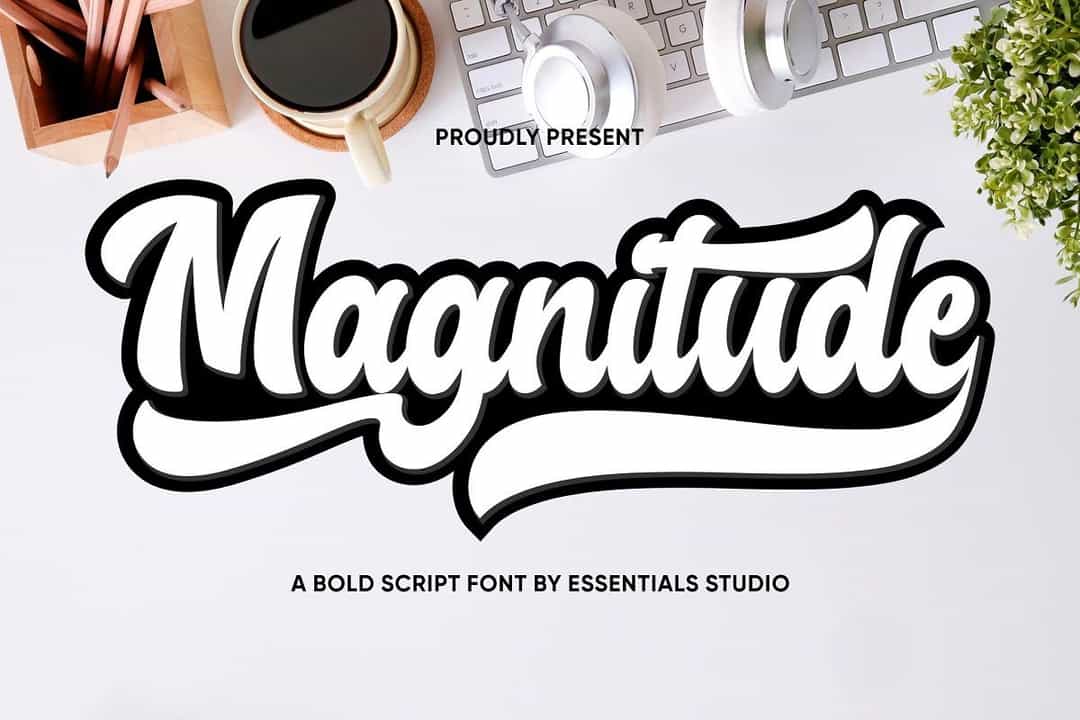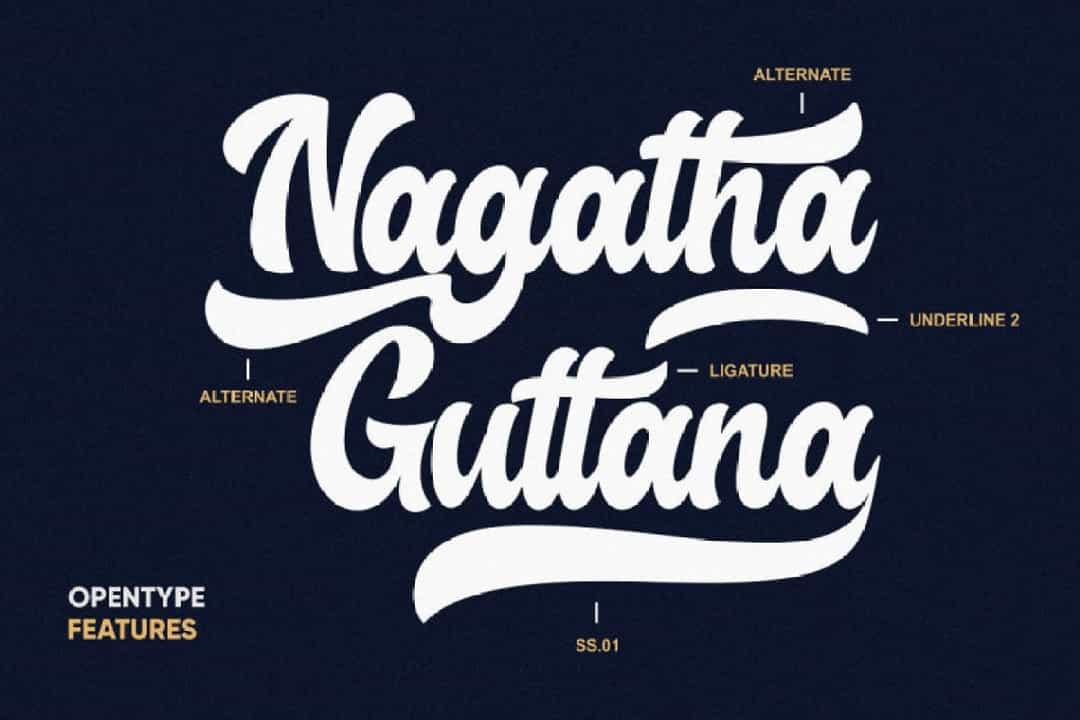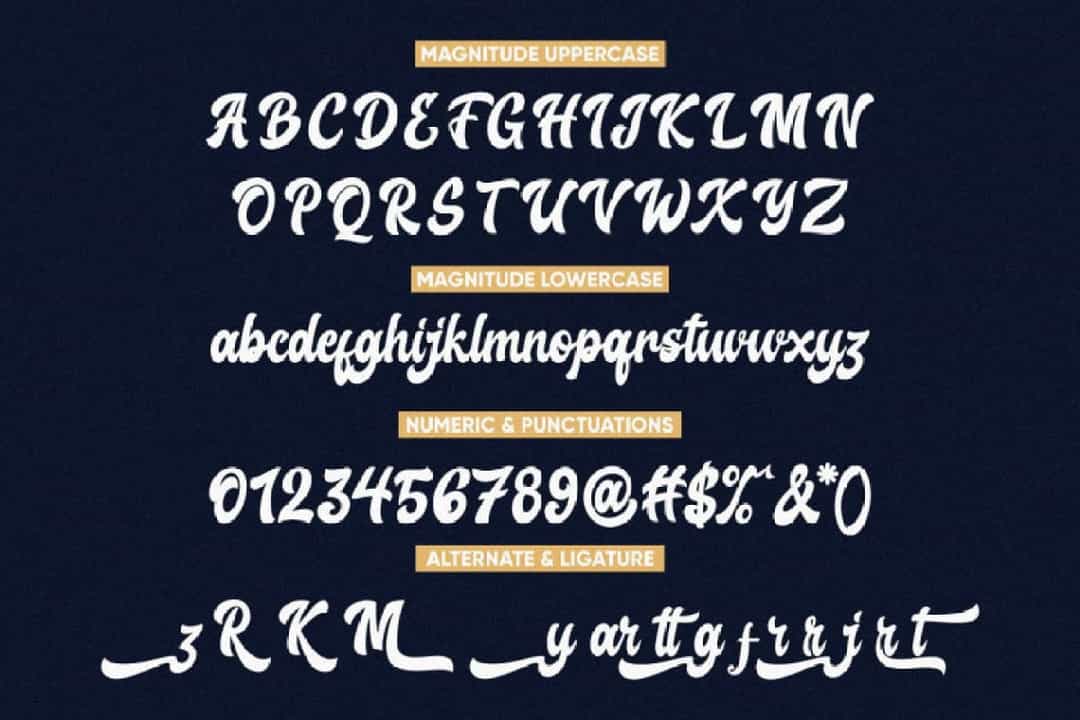
Magnitude is a bold script font with love swash. Magnitude can be used for packaging of products, branding projects, logos, magazines wedding invitations and social media postings, or simply conveying words over any background.